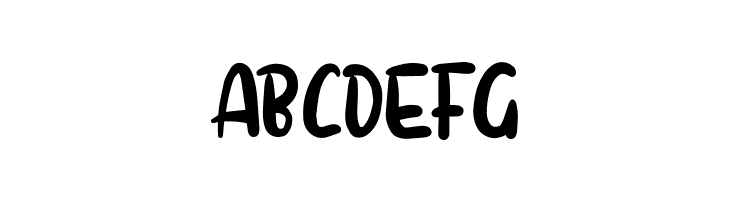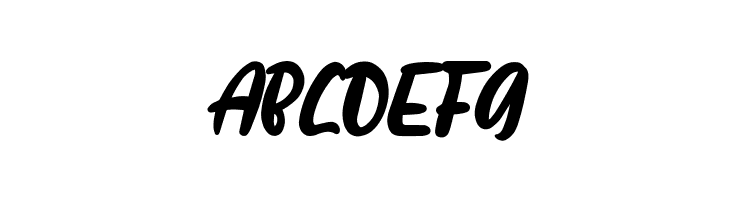
( Fonts by Jorge Morón )
A bold, dynamic font with angular cuts and a playful twist.
( Fonts by Jorge Morón )
A bold, dynamic font with playful serifs and a strong presence.
( Fonts by Jorge Morón )
A bold, condensed font with dynamic characters and strong visual impact.
( Fonts by Jorge Morón )
A bold, modern font with a slightly condensed style and playful elements.
( Fonts by Jorge Morón )
A bold, modern font with a slightly decorative and dynamic style.
( Fonts by Jorge Morón )
A bold, dynamic font with distinctive serifs and a modern-retro vibe.
( Fonts by Garisman Studio )
A bold, dynamic script font with fluid, connected letterforms.
( Fonts by Garisman Studio )
A playful, bold font with rounded edges and consistent stroke width.
( Fonts by Darrell Flood )
A bold, cursive script font with a playful and energetic style.
( Fonts by Darrell Flood )
A bold, handwritten font with smooth, flowing curves and a casual, energetic style.
( Fonts by Darrell Flood )
A bold, italic, and fluid cursive font with a modern, handwritten style.
( Fonts by Darrell Flood )
A bold, italic script font with smooth, flowing strokes.